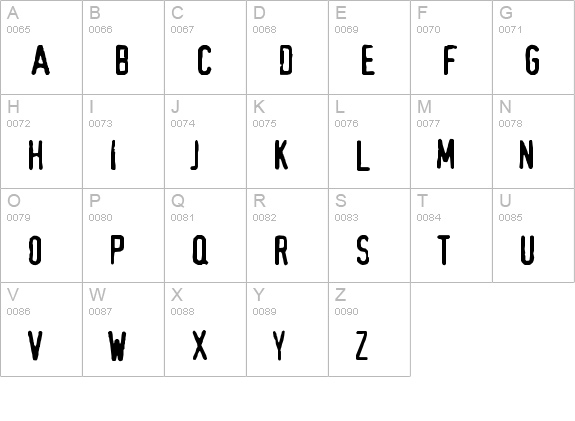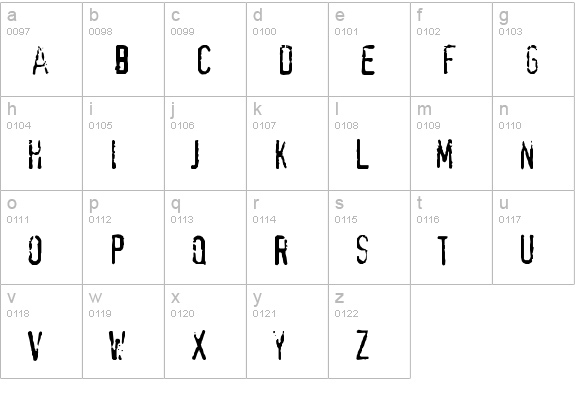
Hootie! Font Details
Introducing Hootie! font, a charming and whimsical typeface that will add a touch of playfulness to your designs. With its quirky letterforms and unique character, Hootie! font is perfect for a variety of creative projects, from invitations to branding to children's books. This font is free to download at FontsMarket.com, making it accessible to all designers looking to add a touch of fun to their work. Whether you're working on a personal project or a client's brief, Hootie! font is sure to bring a smile to your audience's face. So why wait? Download Hootie! font today and let your creativity take flight!